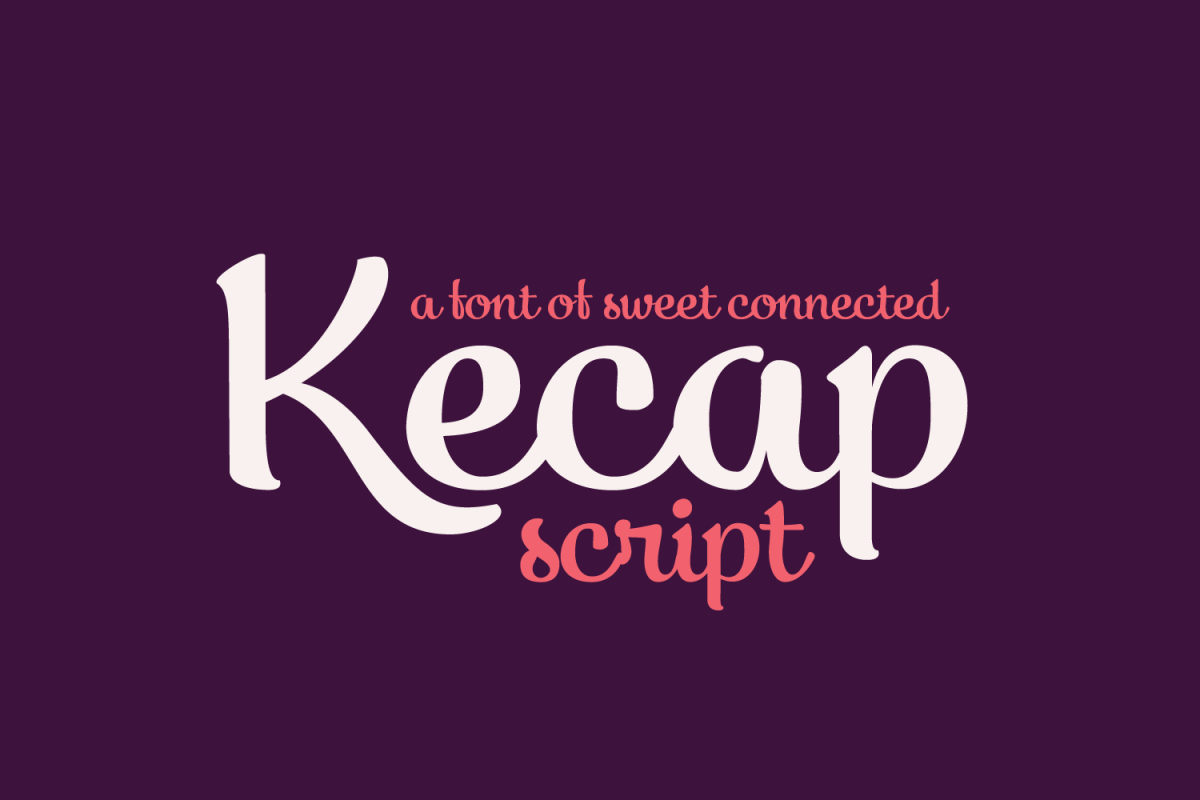
Kecap
Fun, fresh and beauty, Kecap is a sweet connected script that fit for display and text. This font is fit for logo, branding, product, cards, labels, infographic, photography and other creative projects. Contain Regular and italic weight, multilanguage latin support with over than 300 glyphs.